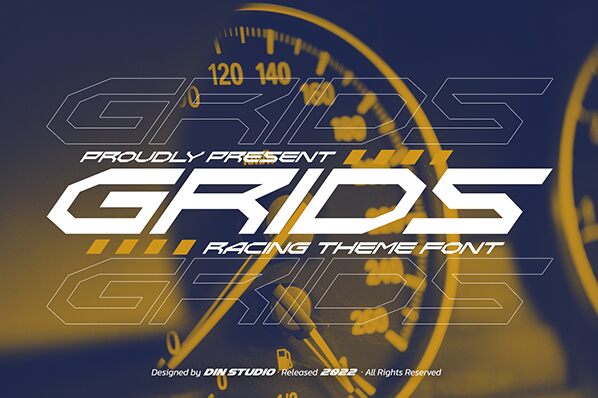
Grids Personal Use Only Regular
Grids font by Din Studio is a free techno display font with an expanded width designed to draw attention. Each character combines geometric shapes and technical styles, resulting in a collection of letters with strong futuristic vibes.
Free to download and use, the dark design has its natural place on movie posters, sporting club ads, typography arts or tattoo designs. Find it also in use for video game covers, magazine front pages or article covers about technology and space.